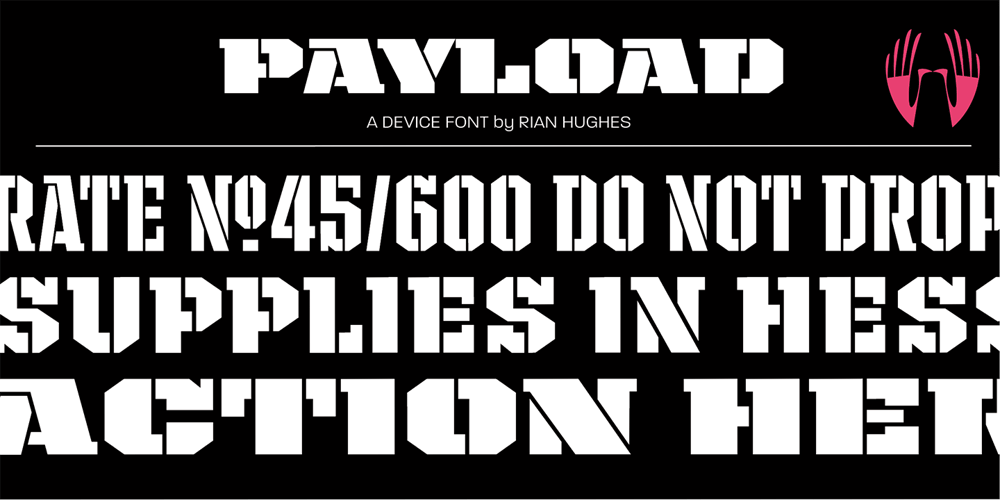
Payload Font Family was designed by Rian Hughes and published by Device. Payload contains 7 styles and family package options. Payload began as an early concept for Loaded magazine, and here is developed into a clean outline and rough splattery spraycan version. In this font, the upper and lower case characters are subtly different enabling a more realistic appearance to be achieved by ßipping between cases whenever characters occur together in pairs. Wide and Narrow styles of this popular font have been subsequently been added. This font is reminicent of military stencilling, urban graffiti and freight packaging. The “Outline” version, as before, is a carefully weighted addition where the thickness of the stroke is identical to the stencil gap. It has also been respaced and rekerned to allow for the additional character spread.